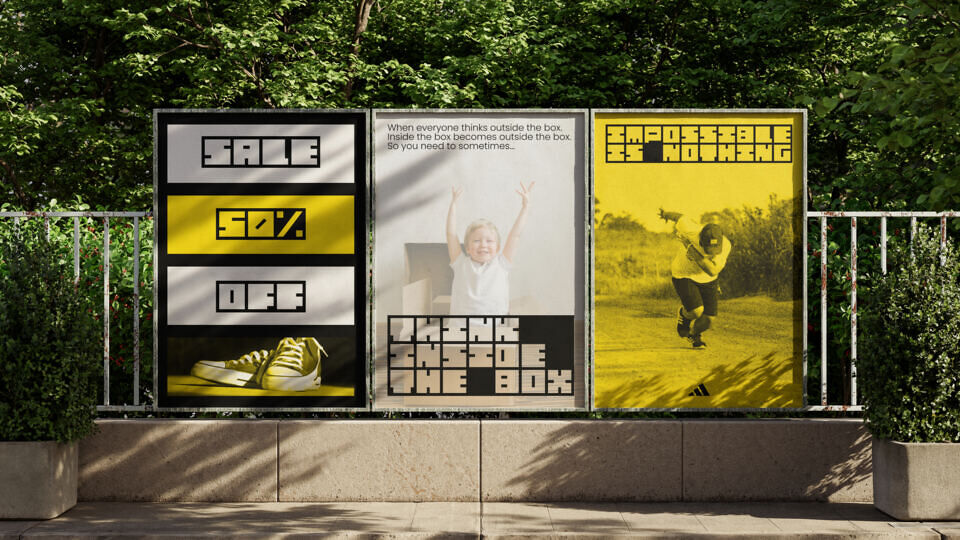
Boxed Lite is a free version of the Boxed typeface, which is a display font with a distinctive, blocky, and modular style. Designed for graphical use at large sizes, it’s perfect for creating eye-catching headlines, posters, and branding. The bold, geometric shapes make it ideal for designs that need to convey a modern, impactful, and pixelated aesthetic.